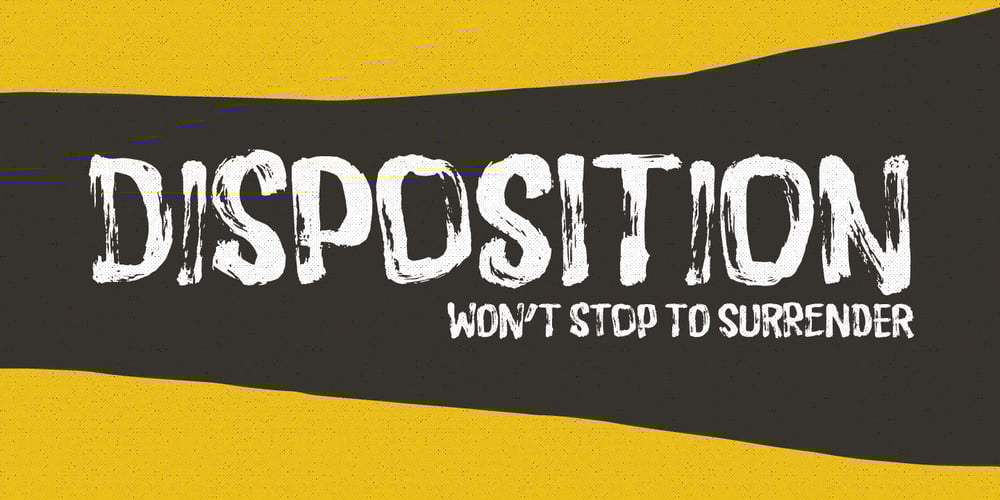
Disposition Font Family was designed by Jakob Fischer and published by PizzaDude.dk. Disposition contains 1 styles and family package options. You may not know it, but you’ve been looking for a font like DISPOSITION! Yeah, it’s a font…but it doesn’t act or look like one! Why?! Because there are 6 different versions of each letter! Yes, SIX different versions! Enough to make your design look soooo cool and handmade! The font uses “contextual alternates” which makes the font cycle the different versions as you type! What can you use DISPOSITION for? There are almost no limits, but I would suggest designs such as invitations, headlines, posters, signs and other cases where a dry brush look is required.